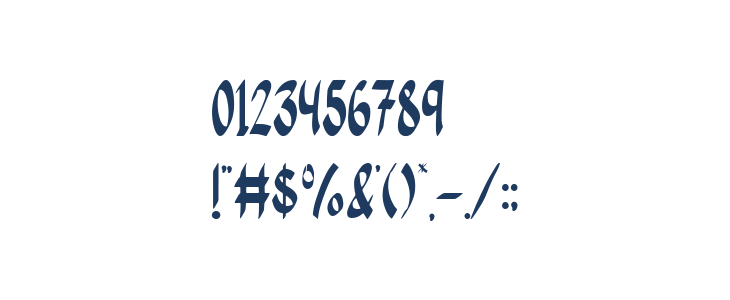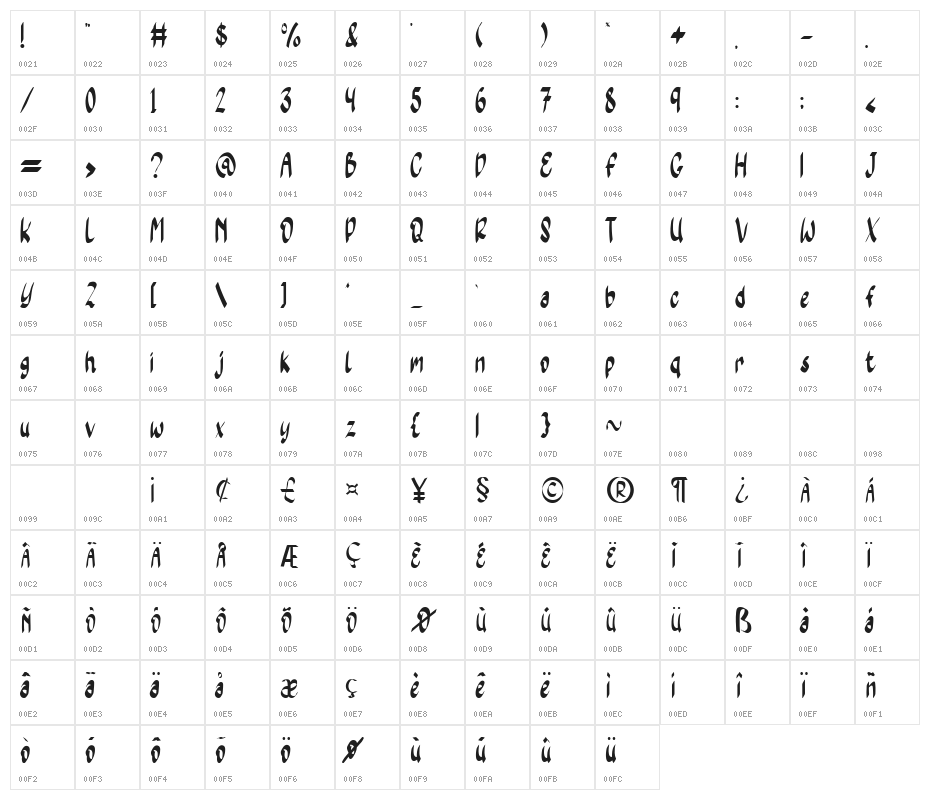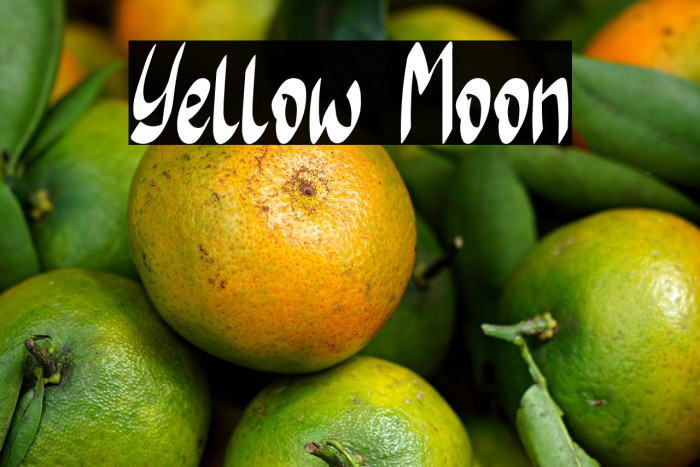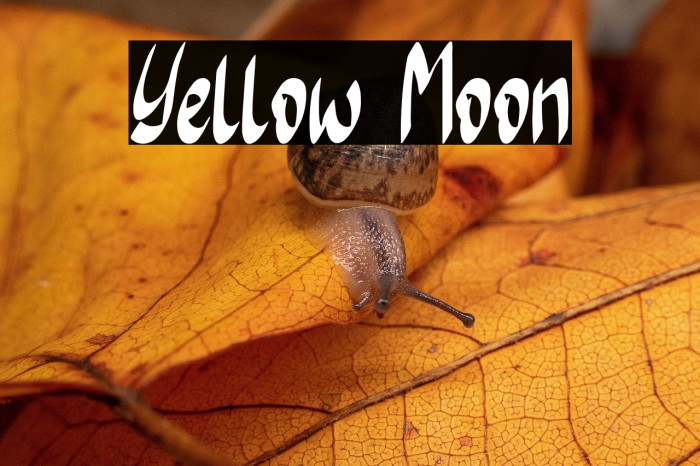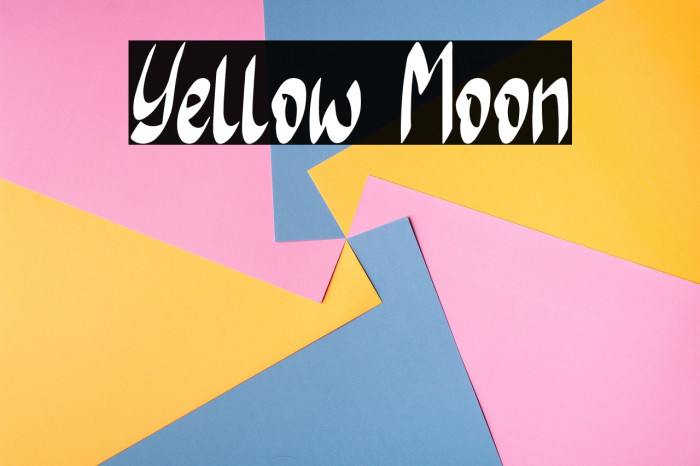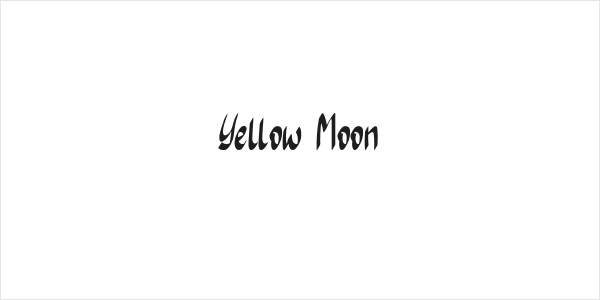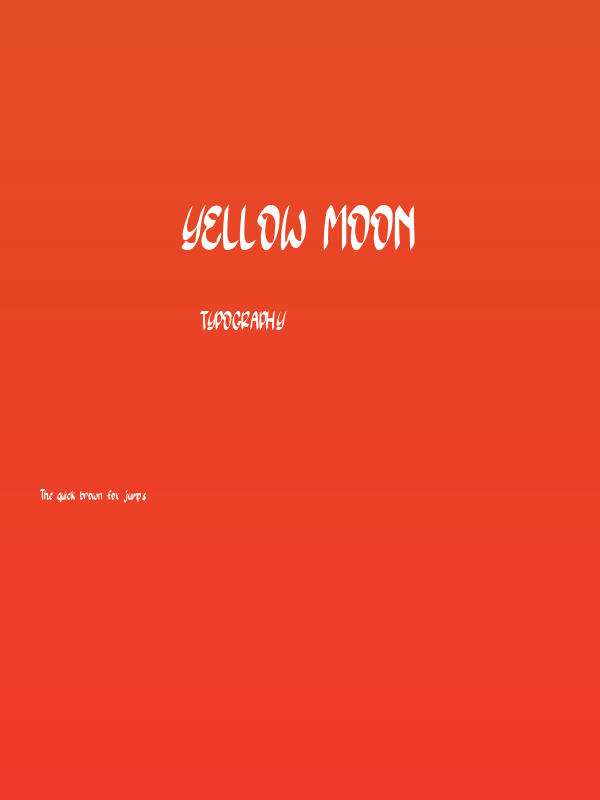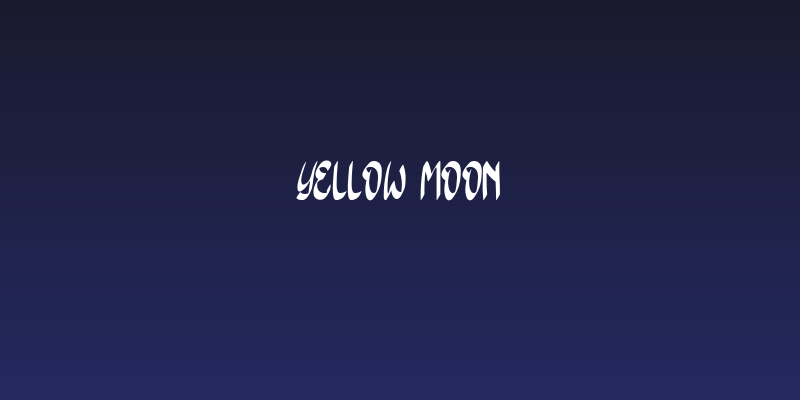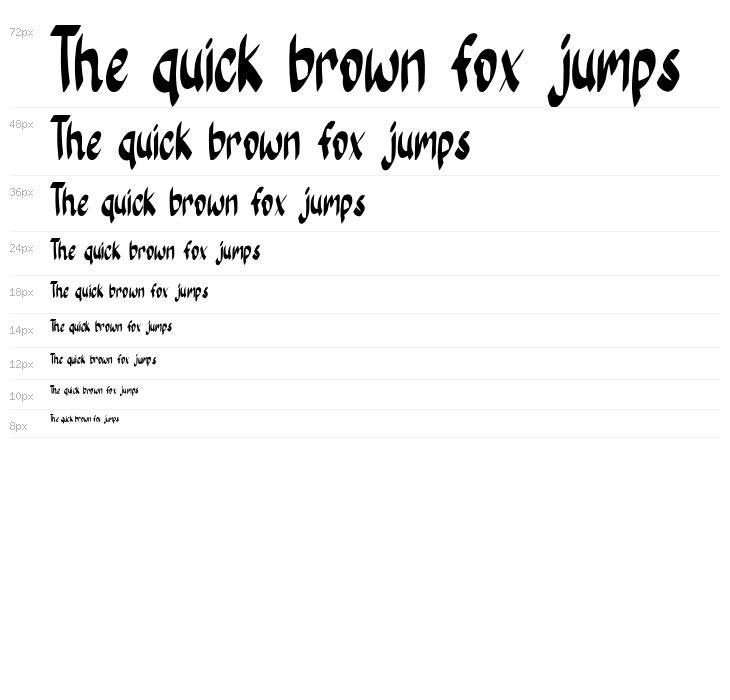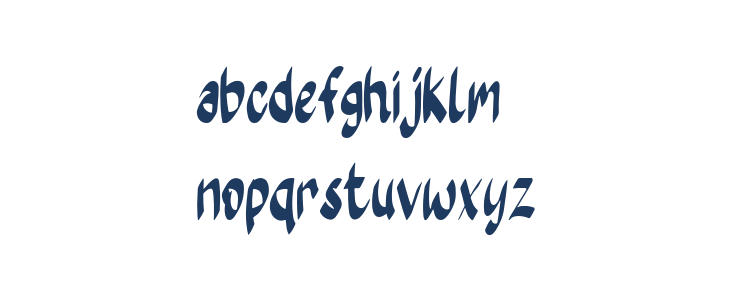
Yellow Moon Font
Yellow Moon Description
This font features a dynamic and energetic style with a handwritten appearance. The characters are bold and slightly slanted, giving a sense of motion and fluidity. The strokes are thick and uneven, adding a playful and informal touch. The uppercase and lowercase letters maintain a consistent style, with the uppercase being more pronounced. Numbers and special characters are designed to match the overall aesthetic, ensuring a cohesive look. This font is ideal for projects that require a personal and lively feel.
| Use Case | Logos, Headlines, Posters |
| Proposed Projects | Great for posters, invitations, branding, and any project needing a lively, personal touch. |